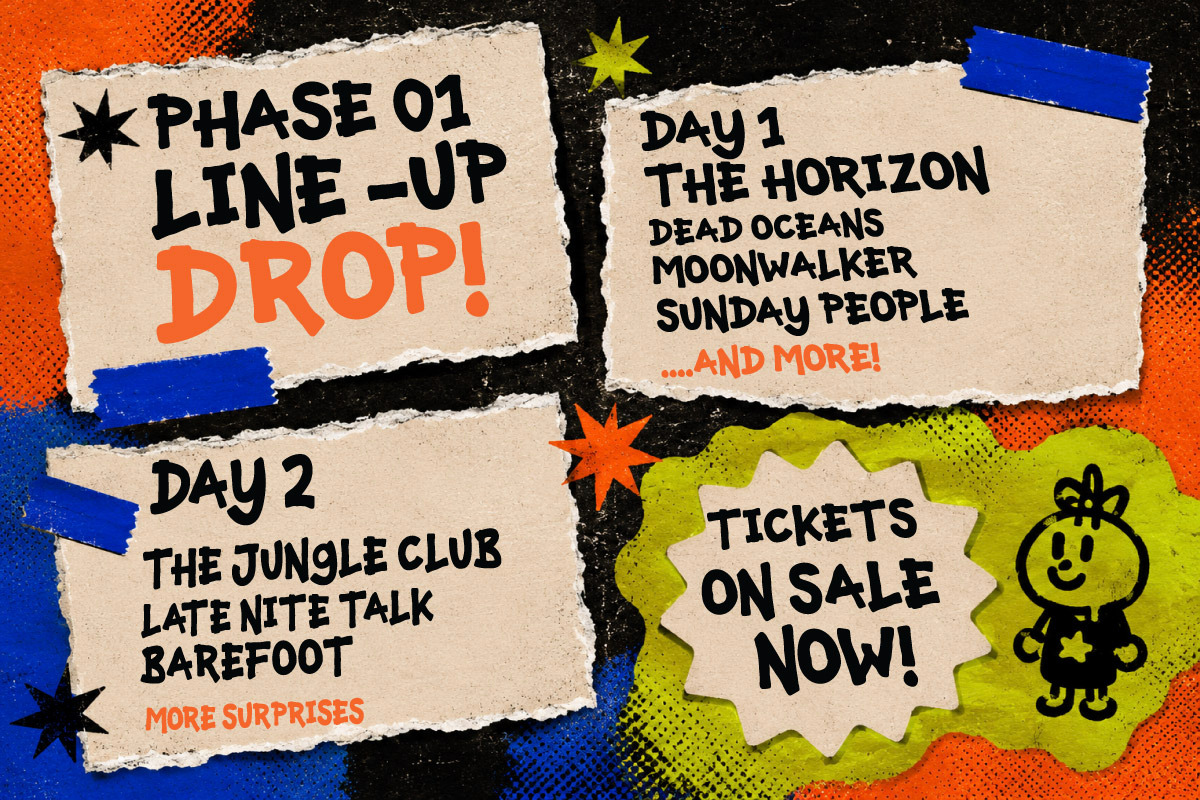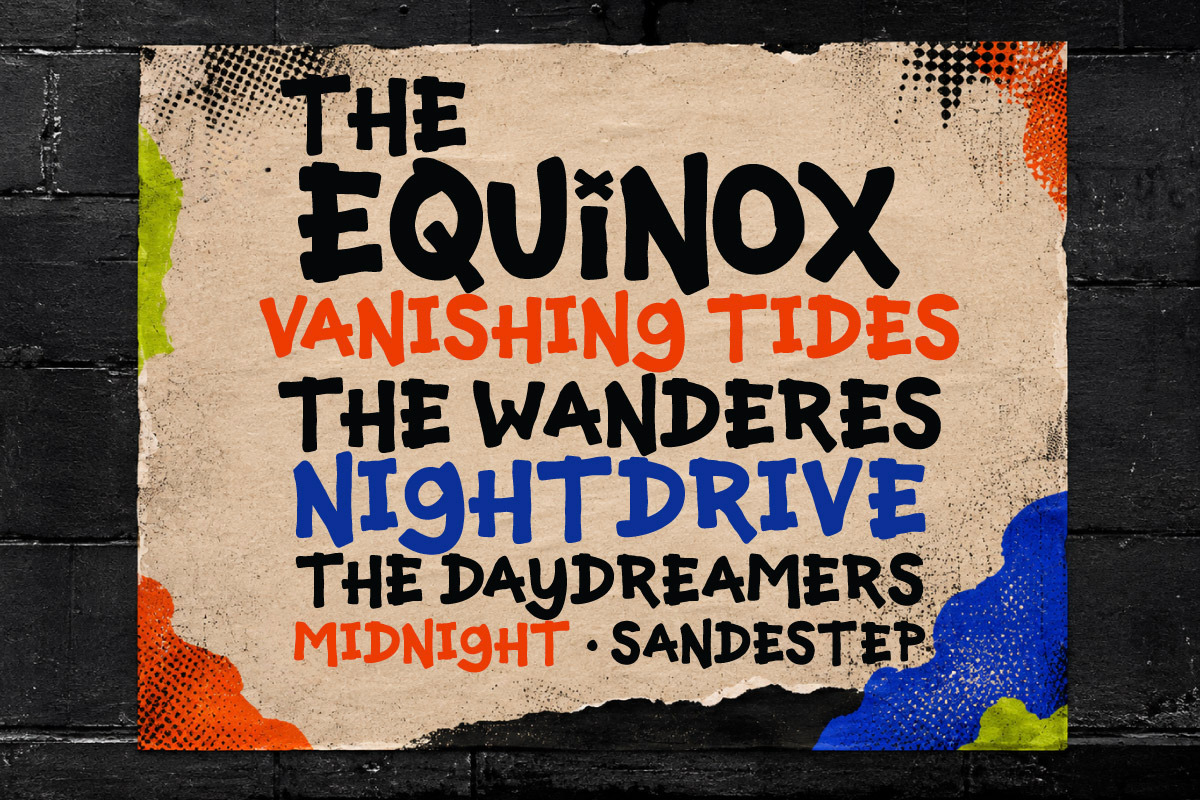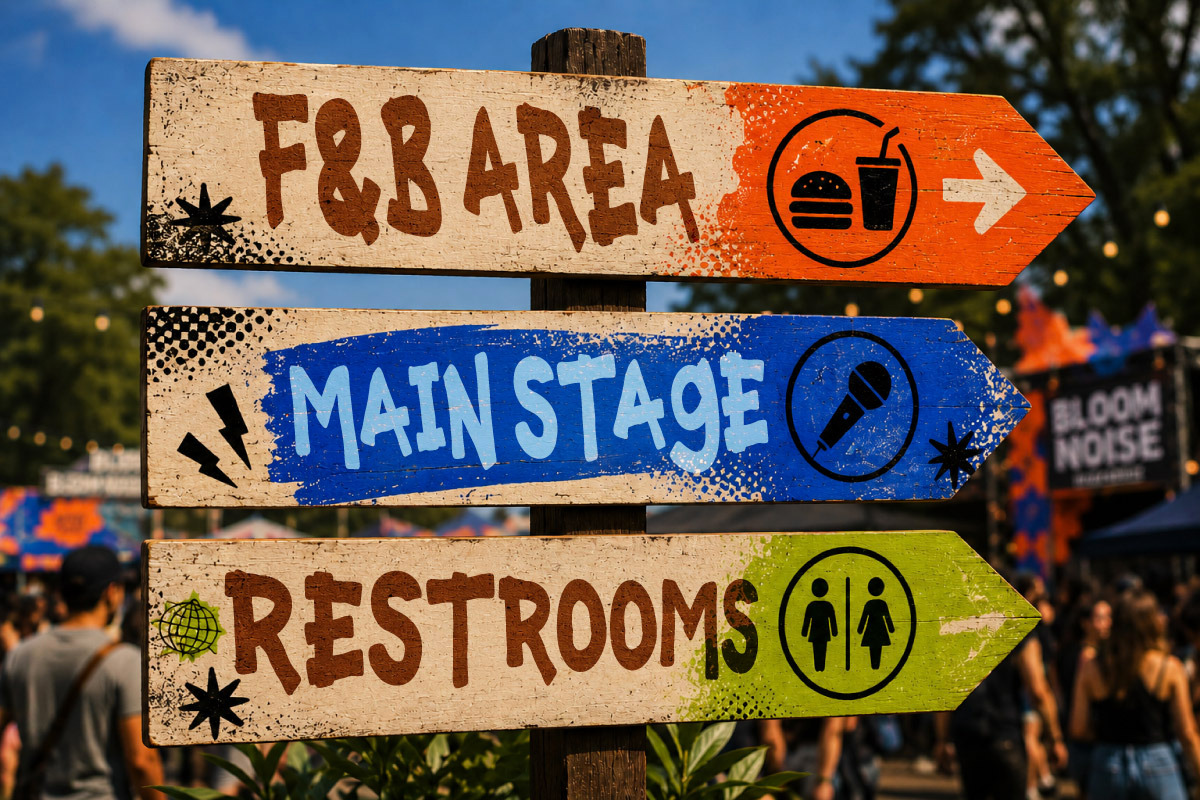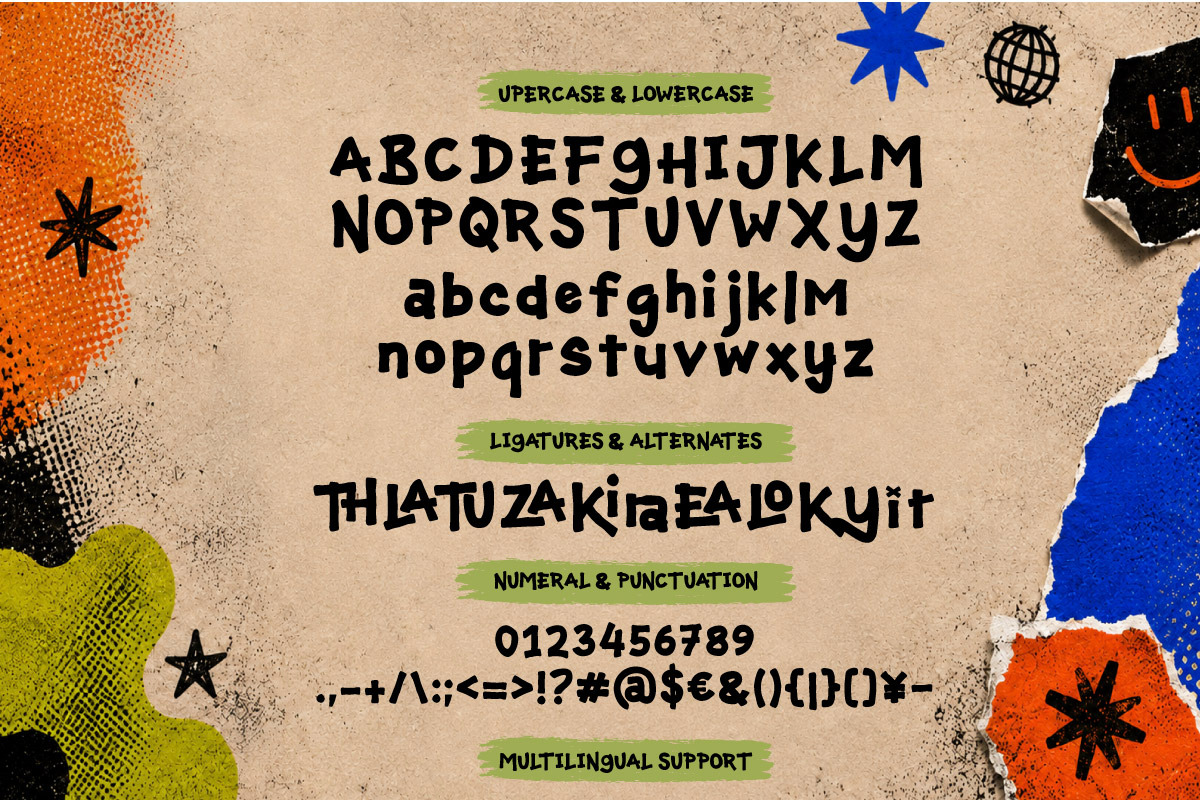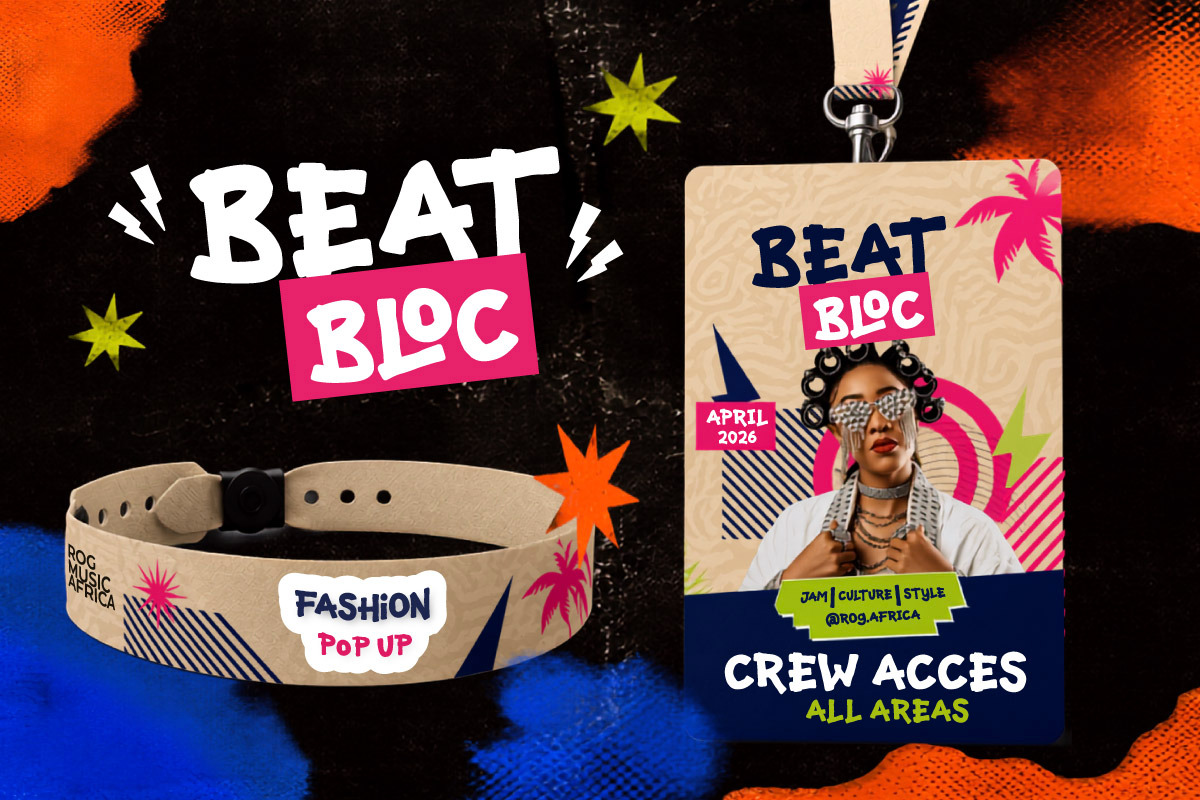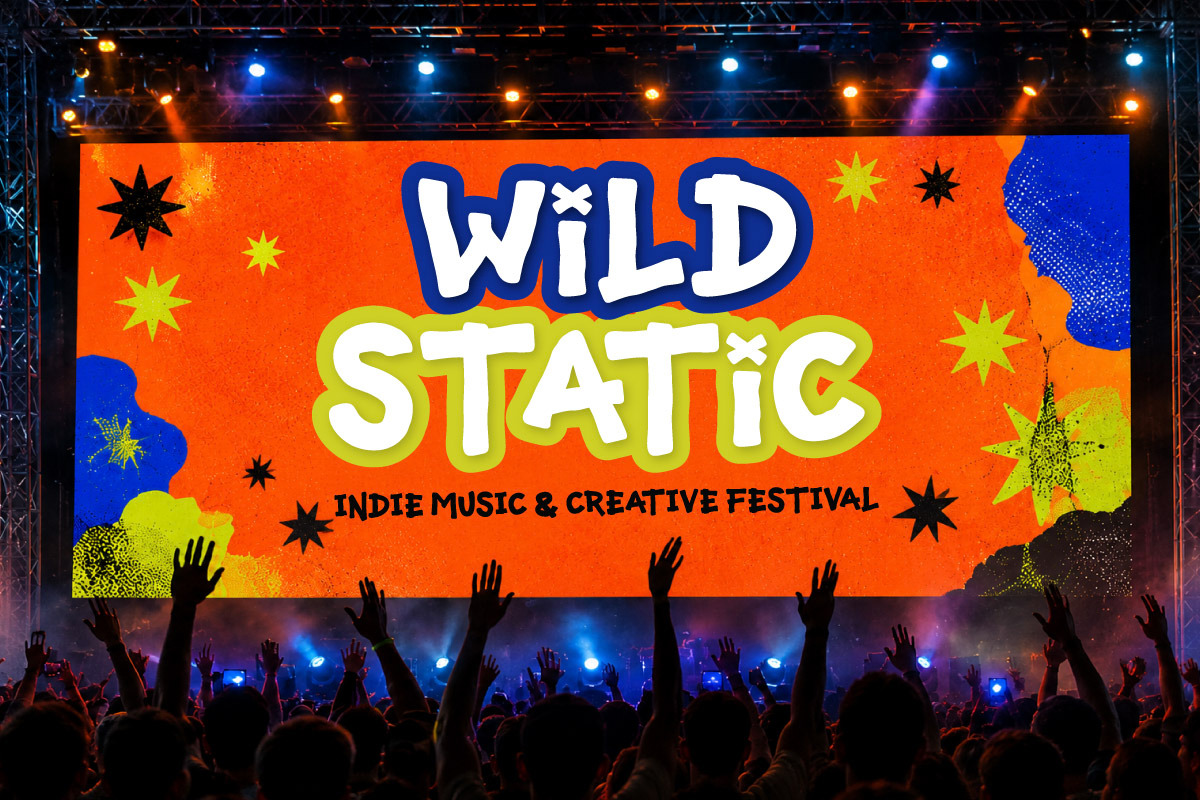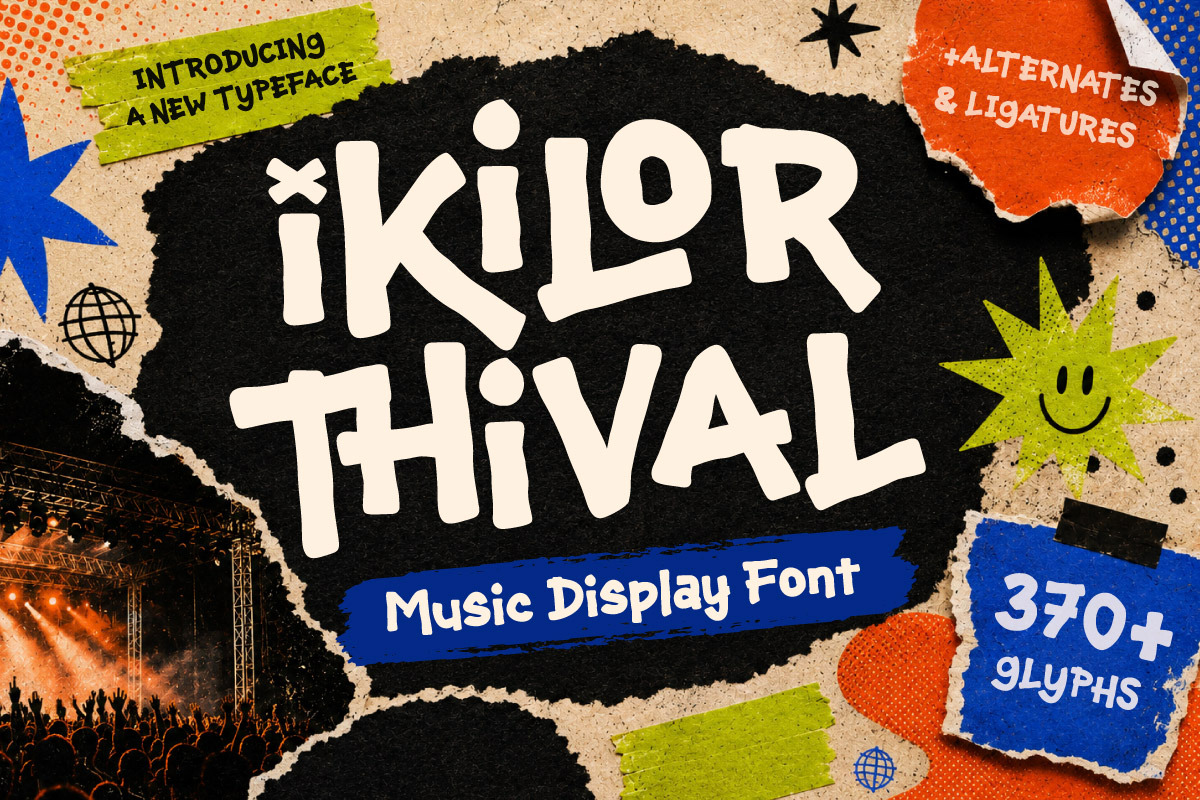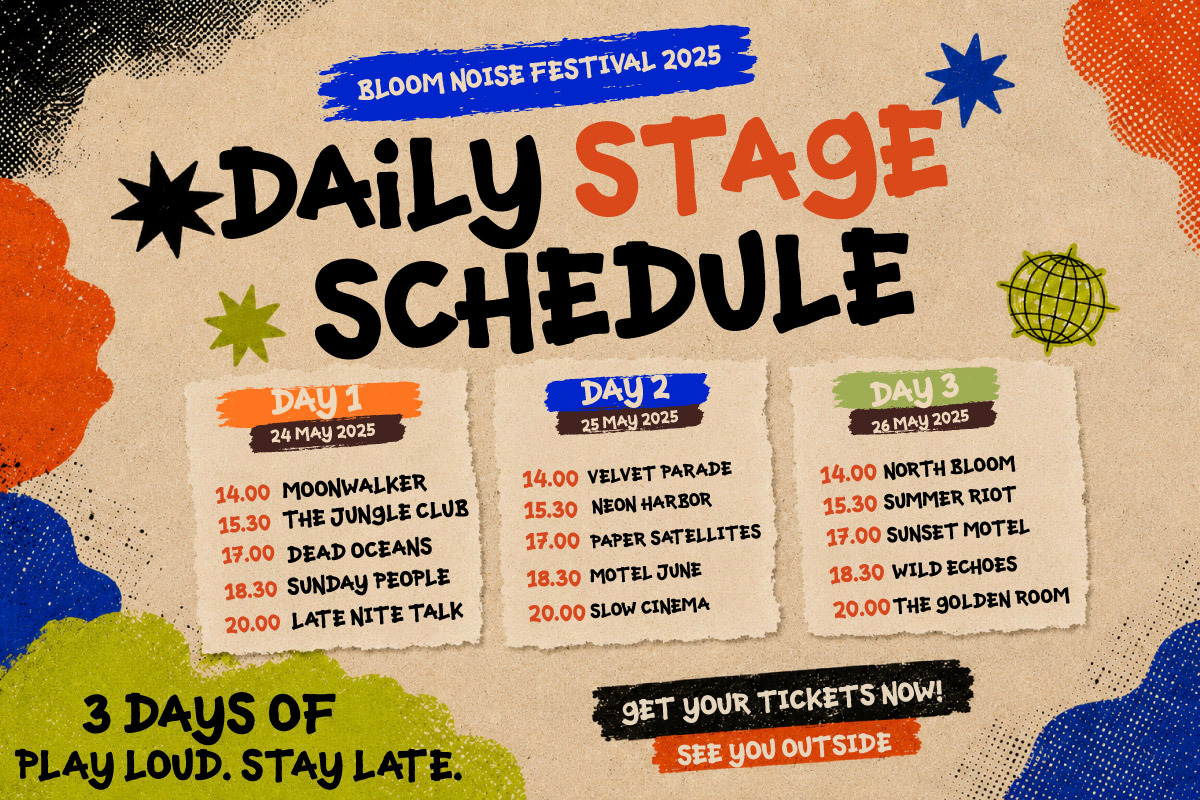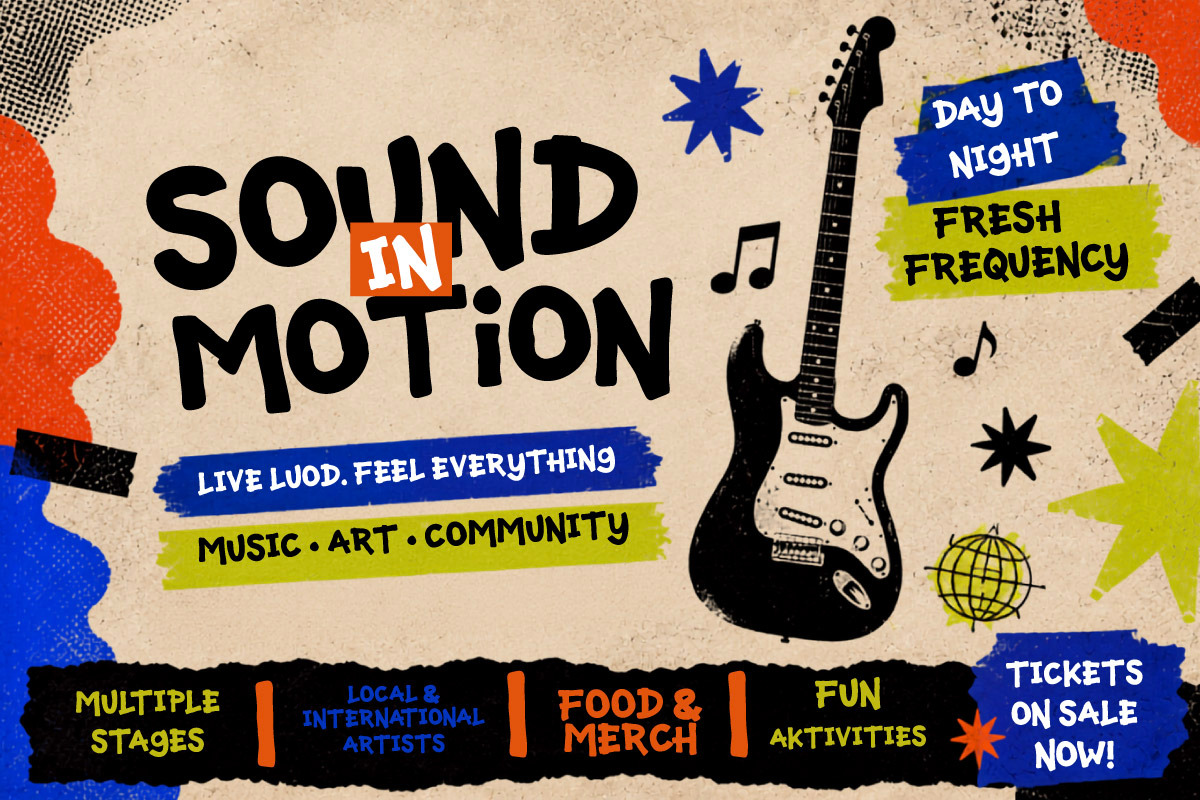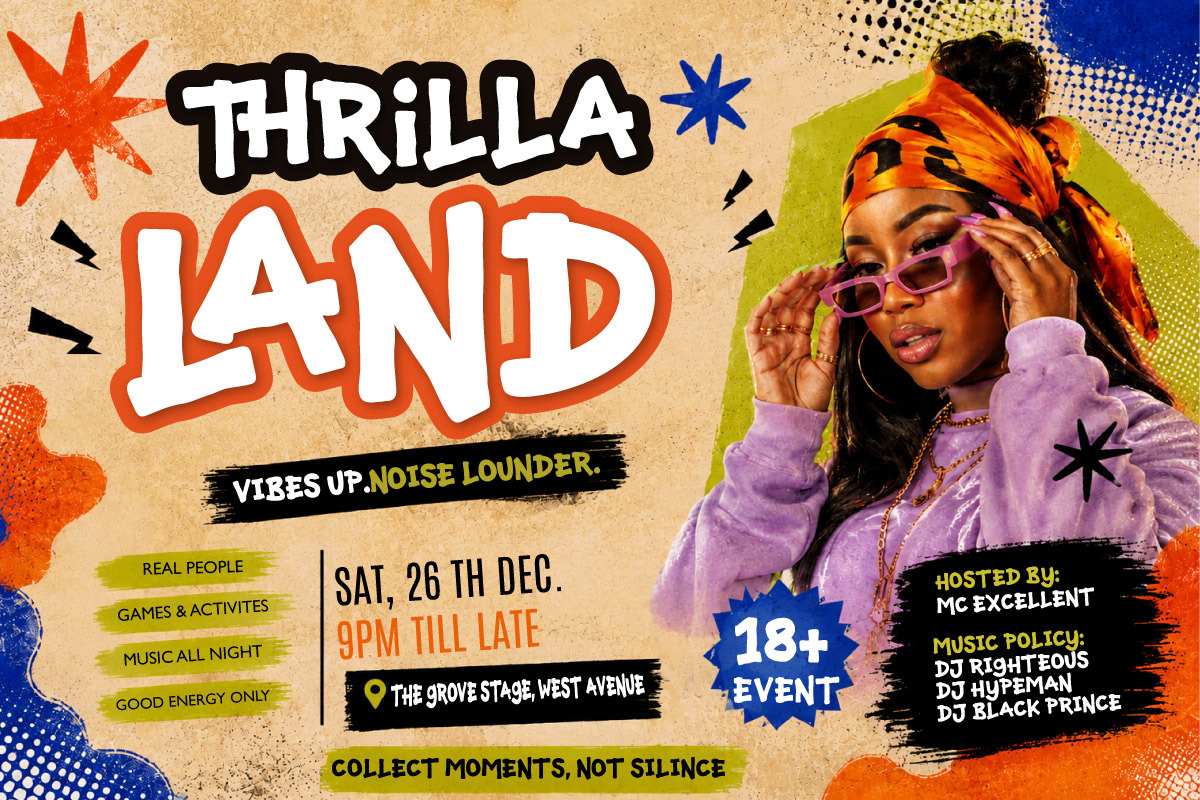
Ikilor Thival - Music Display Font
Ikilor Thival - Music Display Font is a bold, playful, and expressive display typeface created to bring strong energy to music and entertainment designs. Its chunky letterforms and distinctive personality make it highly attention-grabbing and perfect for headlines, posters, campaigns, and promotional artwork.
This font is ideal for music festivals, concert posters, parties, DJ events, summer events, nightlife, tours, and entertainment branding. Ikilor Thival also works beautifully for merchandise, album artwork, social media promotions, event tickets, stage graphics, and advertising projects that need a bold and memorable visual identity.
With its versatile display character, Ikilor Thival helps designers create energetic, youthful, and modern visuals. It is a strong choice for graphic designers, event organizers, musicians, creative agencies, and entertainment brands looking to make their designs stand out.